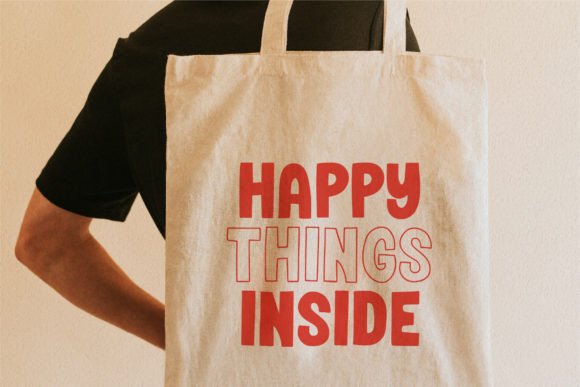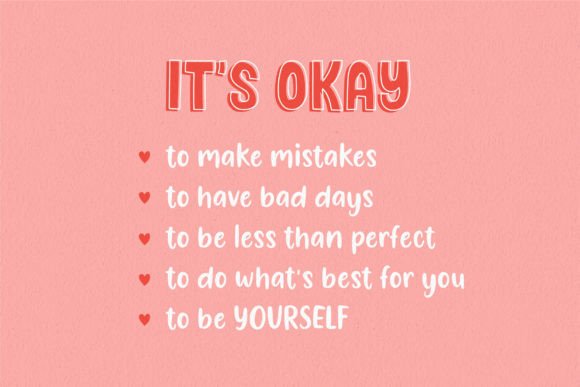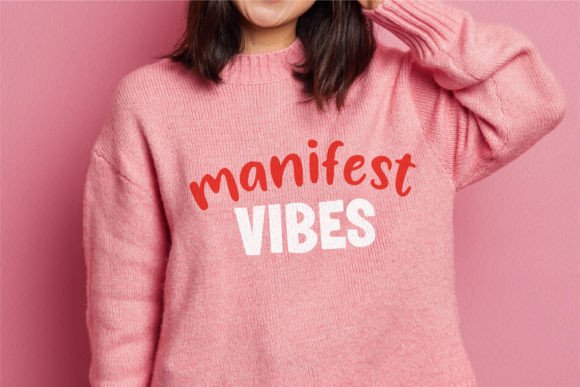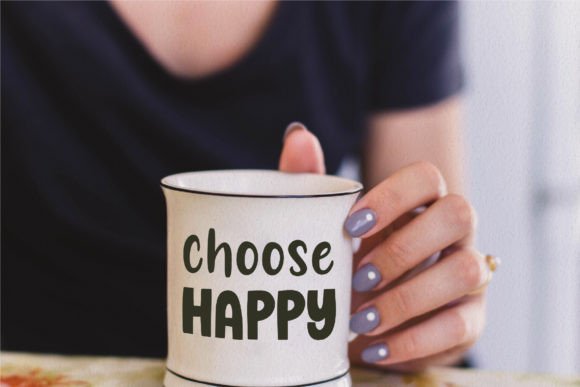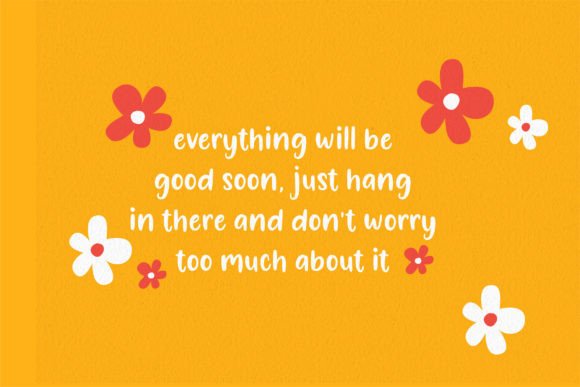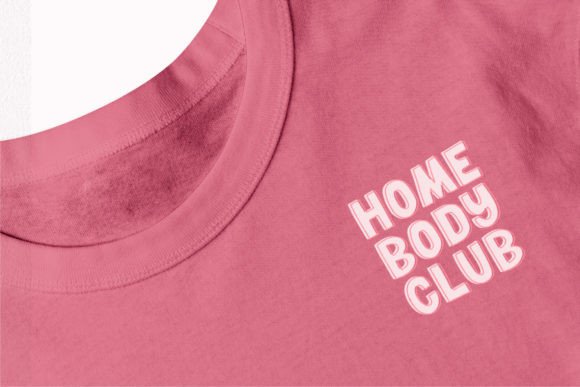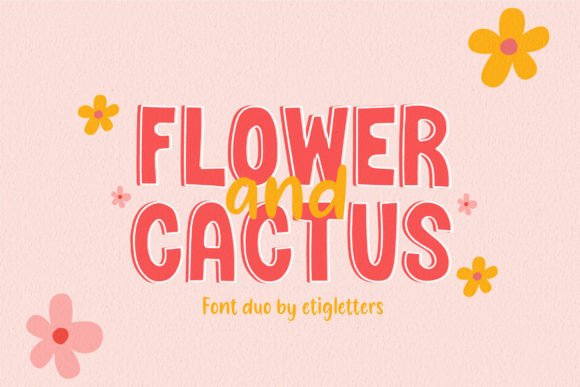
Introducing the Delightful Flower and Cactus Duo Font
Are you on the hunt for a font combination that exudes playfulness and fun? Look no further than the Flower and Cactus duo font! This charming sans serif font combo is perfect for designers and crafters seeking to add a touch of whimsy to their projects. In this article, we’ll dive into the world of Flower and Cactus, exploring its features, uses, and benefits.
A Playful and Fun Font Combination
The Flower and Cactus duo font is a match made in heaven for those who adore bright and cheerful designs. This font combination is characterized by its clean and simple sans serif style, making it incredibly versatile for various applications. Whether you’re working on stickers, greeting cards, logos, posters, or any other project that requires a fun and happy look, Flower and Cactus is the perfect choice.
Key Features of Flower and Cactus
• Playful and Fun: The Flower and Cactus duo font is designed to bring a smile to your face. Its carefree and lively style is sure to capture the attention of your audience.
• Sans Serif Style: The clean and simple sans serif design makes it easy to read and perfect for a wide range of applications.
• Versatile: Use Flower and Cactus for various projects, from stickers and greeting cards to logos and posters.
• Easy to Pair: The Flower and Cactus duo font is designed to work seamlessly together, creating a beautiful and harmonious visual effect.
Uses for Flower and Cactus
The possibilities are endless with the Flower and Cactus duo font! Here are some ideas to get you started:
• Stickers: Add a playful touch to your stickers with the Flower and Cactus font. Perfect for kids’ parties, events, or as a fun way to decorate your laptop or water bottle.
• Greeting Cards: Create cheerful and personalized greeting cards for special occasions like birthdays, weddings, or holidays.
• Logos: Use Flower and Cactus to create a fun and memorable logo for your business or brand.
• Posters: Design eye-catching posters for events, promotions, or advertisements with the Flower and Cactus duo font.
The Flower and Cactus duo font offers numerous benefits for designers and crafters:
• Time-Saving: With a pre-designed font combination, you can save time and focus on other creative aspects of your project.
• Consistency: The Flower and Cactus duo font ensures consistency in your design, creating a cohesive and professional look.
• Customization: Experiment with different colors, textures, and styles to make the font your own.
Tips for Using Flower and Cactus
To get the most out of the Flower and Cactus duo font, keep the following tips in mind:
• Mix and Match: Experiment with different font sizes, colors, and styles to create visual interest.
• Balance: Ensure balance in your design by pairing the Flower and Cactus font with other design elements.
• Legibility: Make sure to use a clear and legible font size to ensure your message is easily readable.
In conclusion, the Flower and Cactus duo font is a delightful and versatile font combination perfect for designers and crafters seeking to add a playful touch to their projects. With its clean sans serif style, playful vibe, and endless uses, this font duo is sure to bring a smile to your face and inspire your creativity.